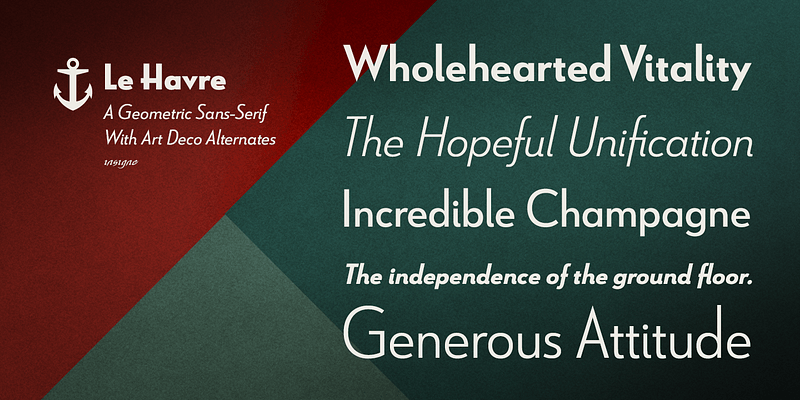
Le Havre is a geometric sans serif inspired by the golden era of the passenger ship, when traveling to your destination was a delight in and of itself.